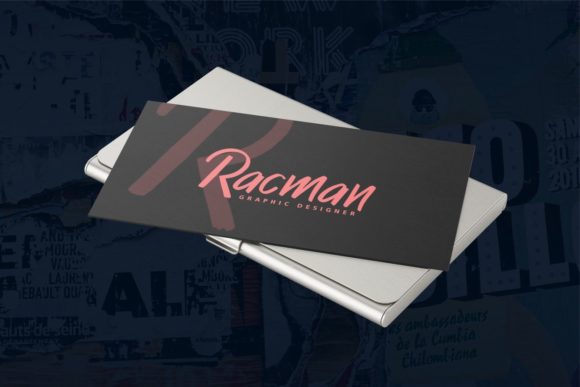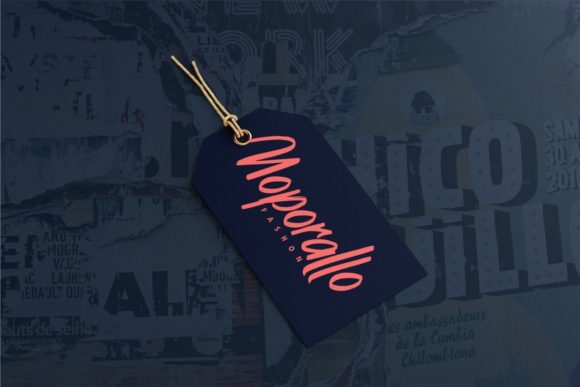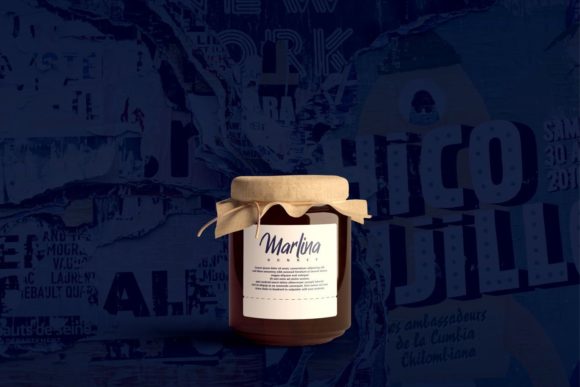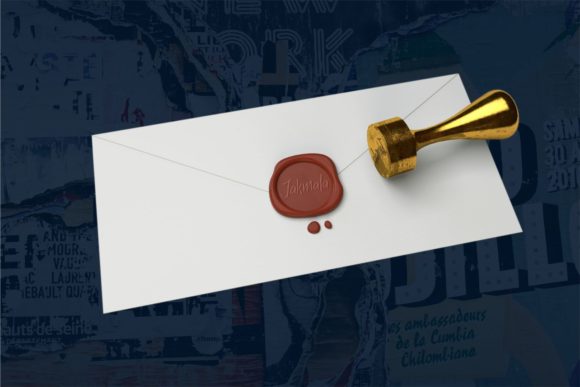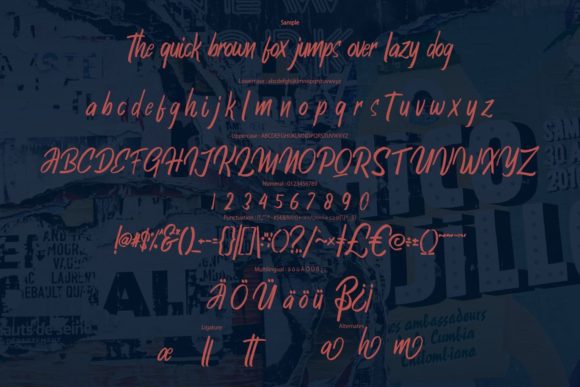
Santaria Font
About Santaria Font
Santaria is a relaxed and casual handwritten font. Not too thin and not too thick, balanced and varied, this font was designed to enhance the beauty of your projects.